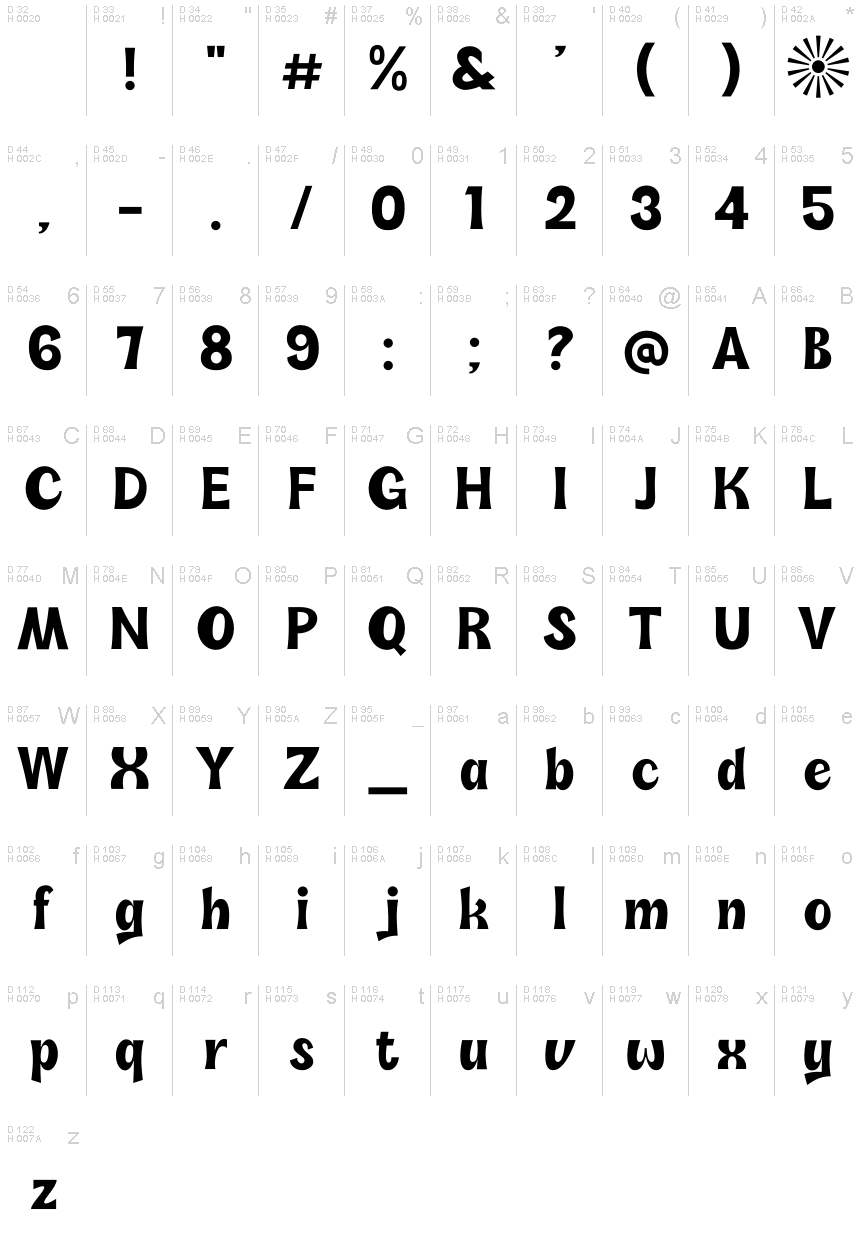
Soli Soleil
Soli Soleil, designed by sez_inn, is a display font that exudes a groovy flair, reminiscent of the spirited 1960s and 1970s design landscape. With its bold and curvaceous letterforms, this typeface adds a touch of retro funk to any visual composition. The rounded contours and seamless flow of each character evoke a sense of smoothness and rhythmic movement.
Its distinctive style makes Soli Soleil an ideal choice for projects aiming to stand out with a vintage vibe or those seeking to inject personality into their branding. This font could be the go-to for eye-catching headlines, stylish logos, or playful product packaging where its prominent features can truly shine.